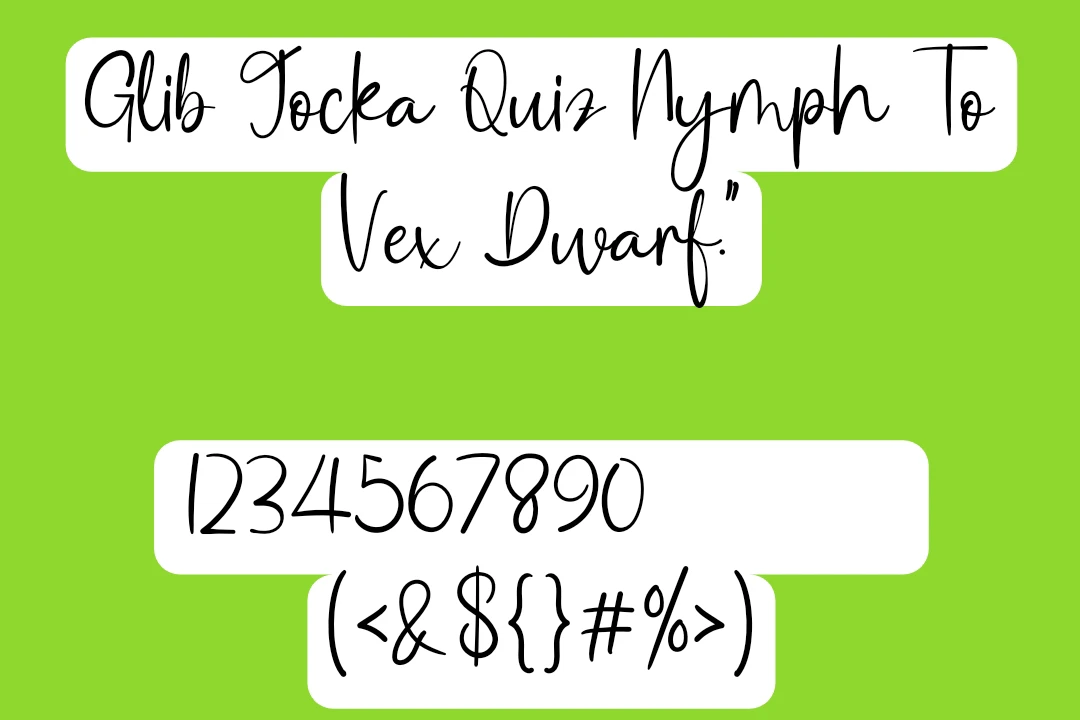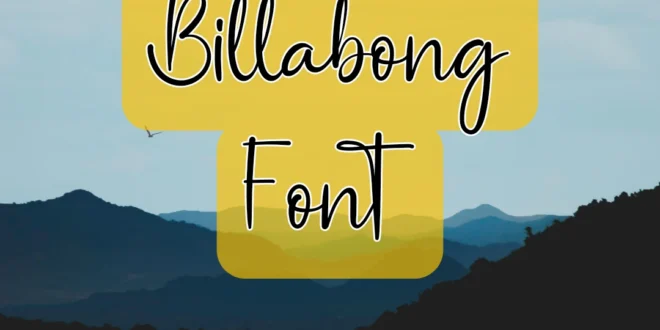
The Billabong Font was designed by Russell Bean and released through Type Associates, is a stylish brush script font that reflects a retro aesthetic inspired by hand-lettered advertisements from the 1940s and 1950s.
This font stands out for its tight spacing, smooth curves, and playful, yet elegant appearance, making it a popular choice for branding and creative projects.
Notably, it gained widespread recognition as the original font used in the Instagram logo before the platform’s 2013 redesign.
Usage of Billabong Font
Billabong is versatile and widely used in various creative applications:
Branding: Its retro charm makes it suitable for logos, especially for lifestyle or fashion brands. The unique brush script style adds personality to the brand identity.
Signage: The font’s origins in vintage hand-lettering make it a go-to choice for retro-style signs and storefronts.
Print and Digital Design: With OpenType features like ligatures and stylistic alternates, designers use Billabong in posters, advertisements, and packaging.
| Name | Billabong Font |
| Designer | Russell Bean |
| Type | Script |
Frequently Asked Questions (FAQs) About Billabong Font
What is Billabong texture?
It is a retro-inspired brush script typeface designed by Russell Bean. It features smooth curves and tight spacing, inspired by 1940s-50s hand lettering.
Who designed Billabong Font?
The font was created by Russell Bean and published by Type Associates.
What category does Billabong texture belong to?
It is classified as a brush script font, characterized by its flowing, hand-drawn style.
What is Billabong Font best used for?
This font is perfect for logos, branding, signage, vintage-themed designs, and social media graphics. It gained fame as the original logo font for Instagram.